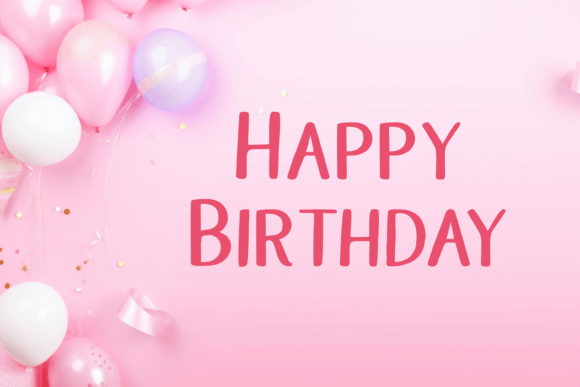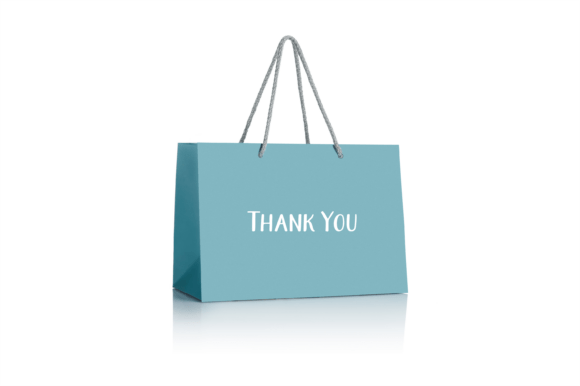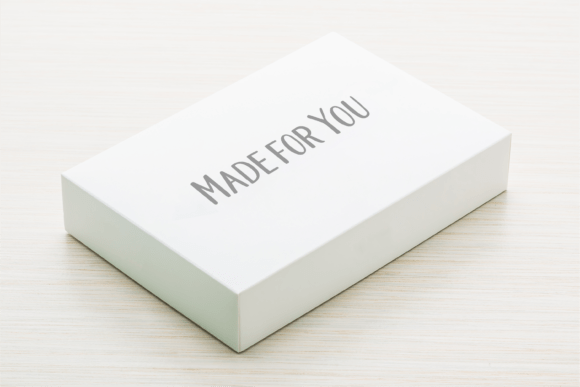
Introduction to Jollybean Font
Jollybean is a playful all-caps display font with a fun and cheerful vibe.
Its rounded and quirky shapes make it perfect for projects that need a youthful, casual, and friendly touch This versatile font is great for: • Kids’ books, flashcards, posters, and school projects 🎒 • Fun merchandise such as t-shirts, tote bags, mugs, and pillows 👕☕ • Product packaging for snacks, candy, ice cream, or toys 🍭 • Party invitations, birthday banners, and DIY decorations 🎉 • Social media posts, colorful quotes, and digital designs 📱 With Jollybean, your designs will always look bright, lively, and full of joy.